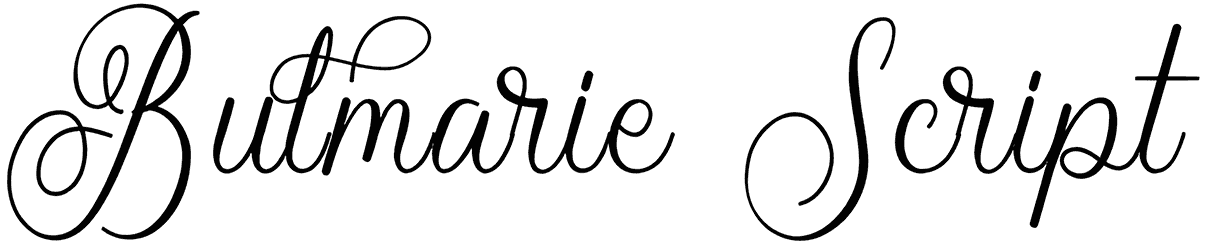
Bulmarie Script Font
The smooth, curvy lines of this classic handwritten font will throw a charming and royal vibe into your novel layout. This postcard font has stylish and beautiful characters, which are going to capture a lot of fans. The Bulmarie Script font doesn’t support punctuation marks, but your new design of a fashion designer business card will be mesmerizing with it.